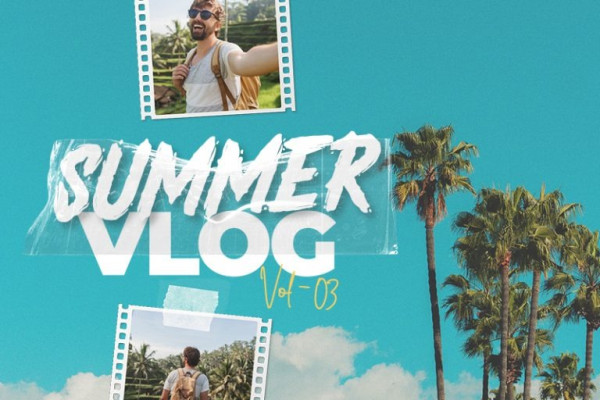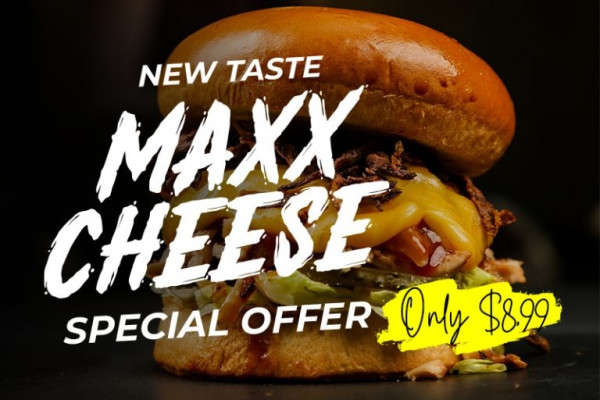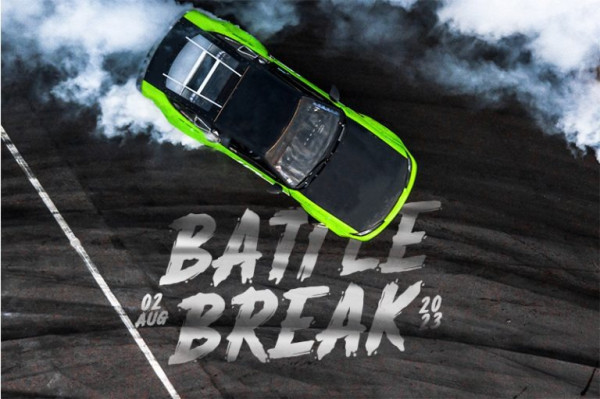
Beast Energy Font
Beast Energy Font is a brush-copying-script font in letter designs having uneven edges as its artistic and organic characteristics. This brush script font can express dramatic, fun impressions through its capital letters making the brush wipe details clearer. The edges will look wider and thicker on certain parts of the letters.
The color applications in this brush script font will also give amazing, artistic effects. For example, brighter colors will live up the letters, while darker ones will have dramatic and mysterious effects. Above all, you need to make sure the letters remain legible even in bigger text sizes. Furthermore, you can enjoy the available features here.
Beast Energy fits best for various design projects, such as brandings, quotes, printed products, merchandise, social media, etc. Find out more ways to use this font by taking a look at the font preview.